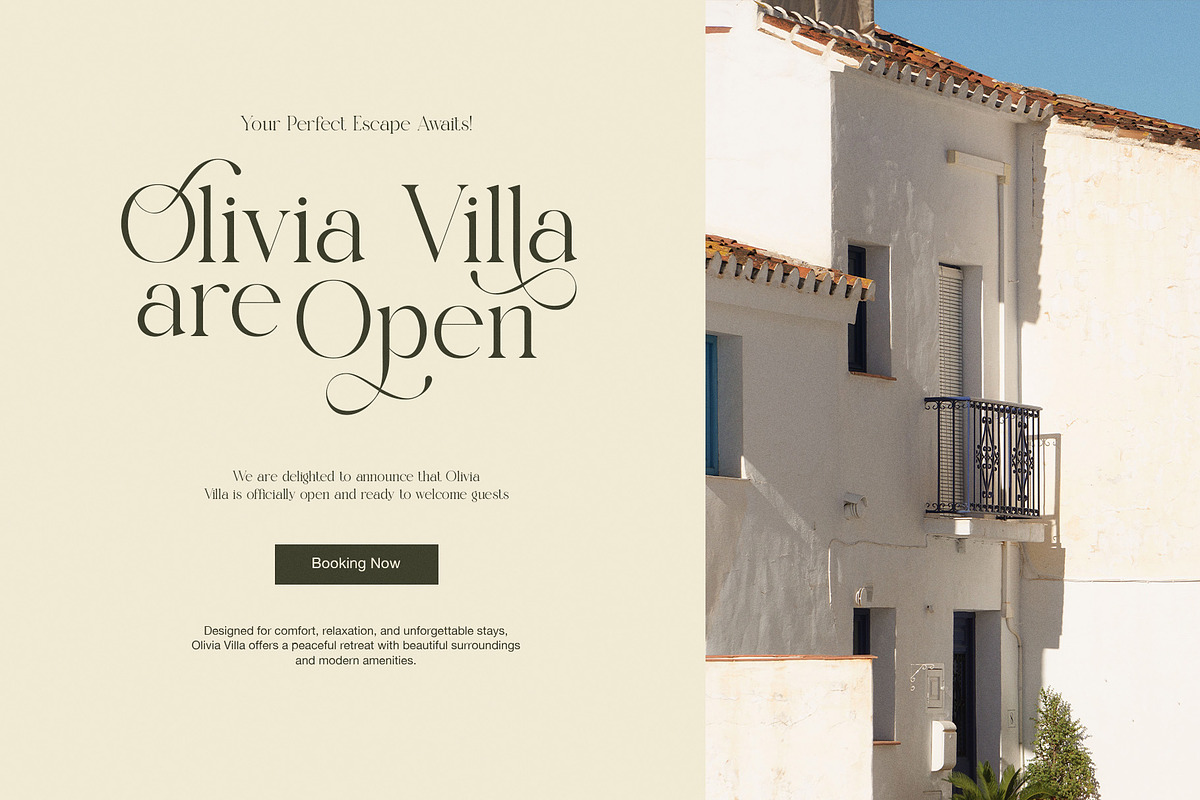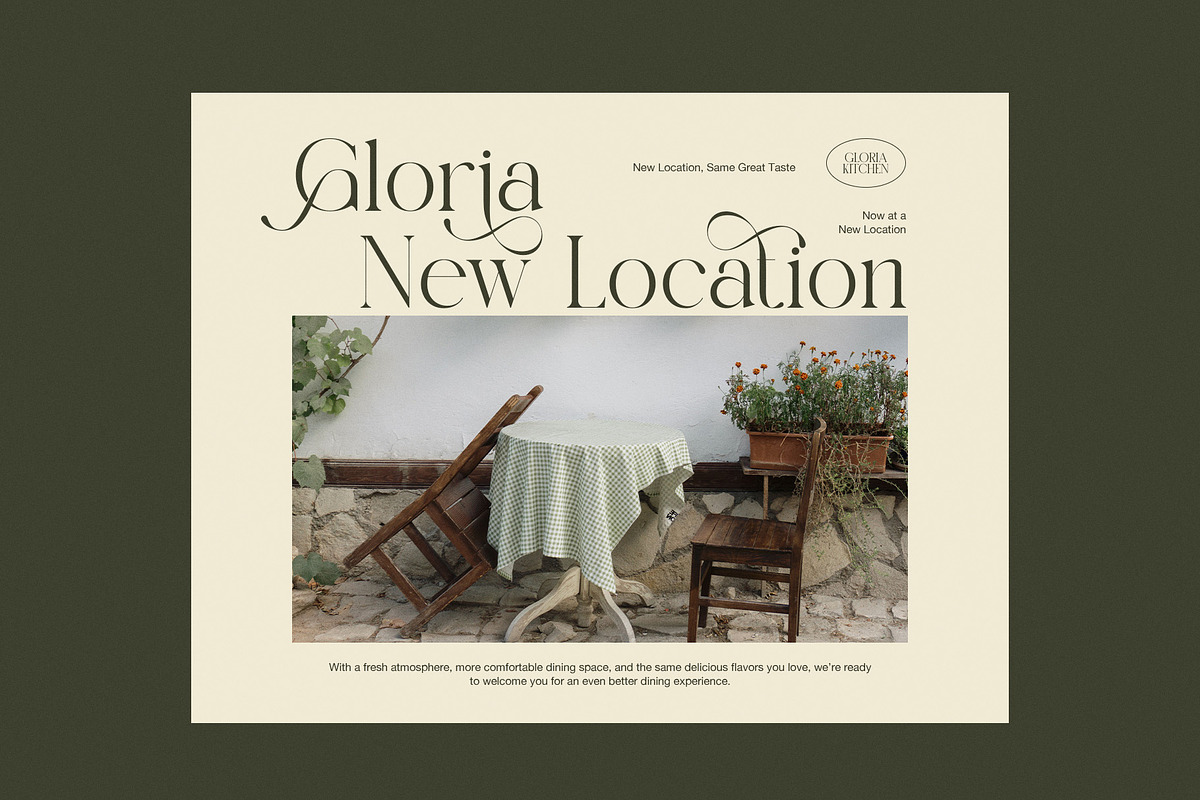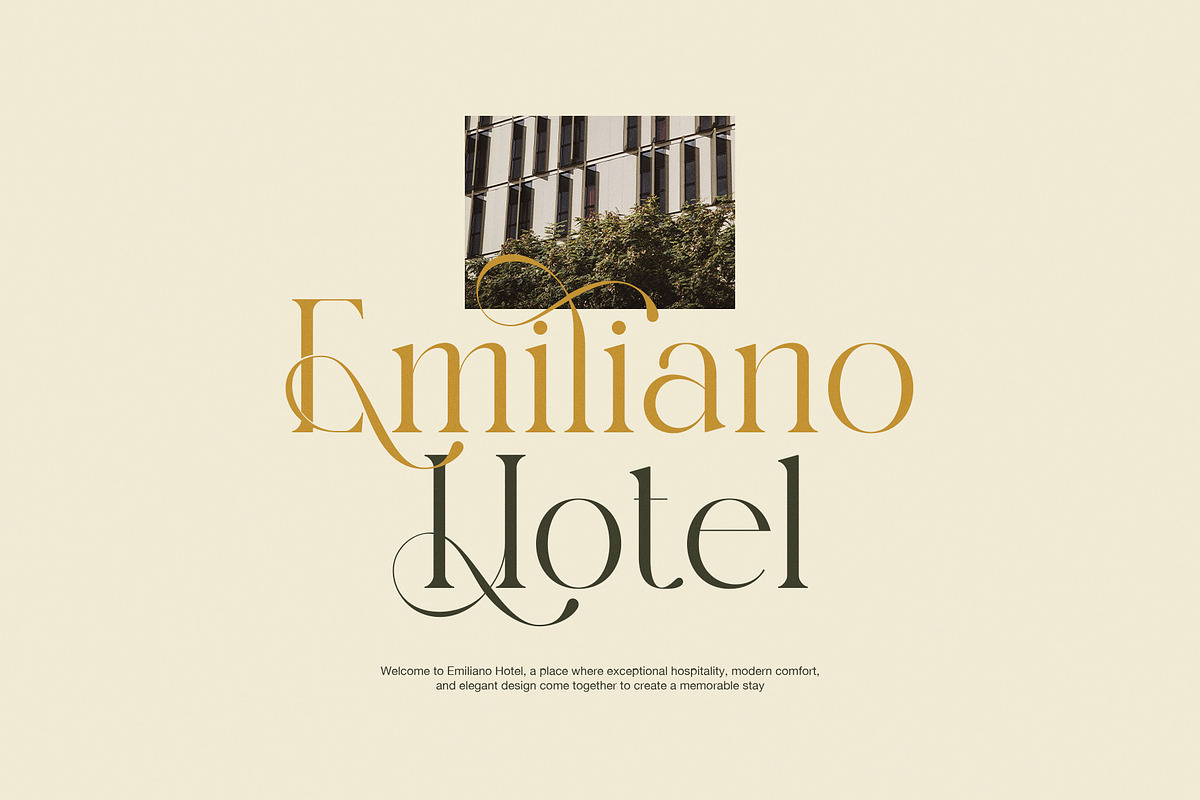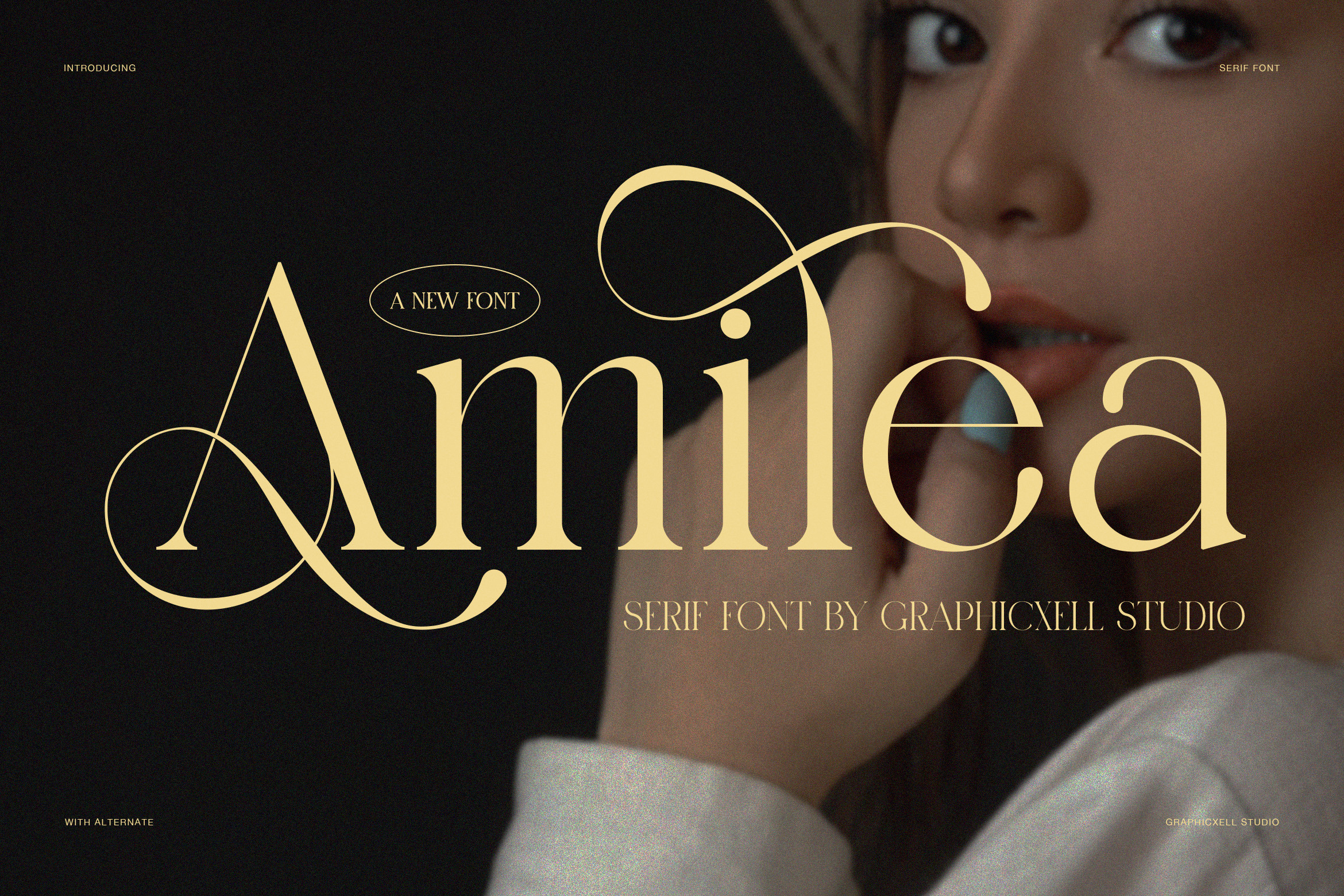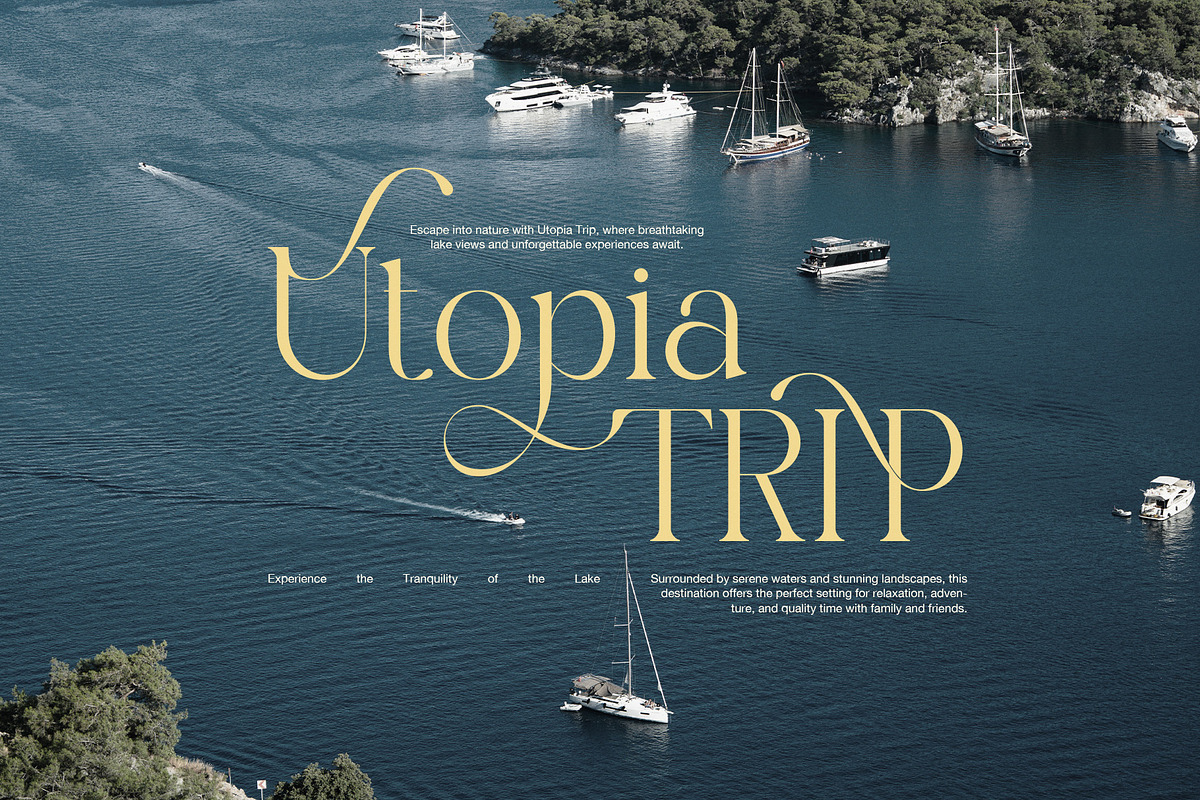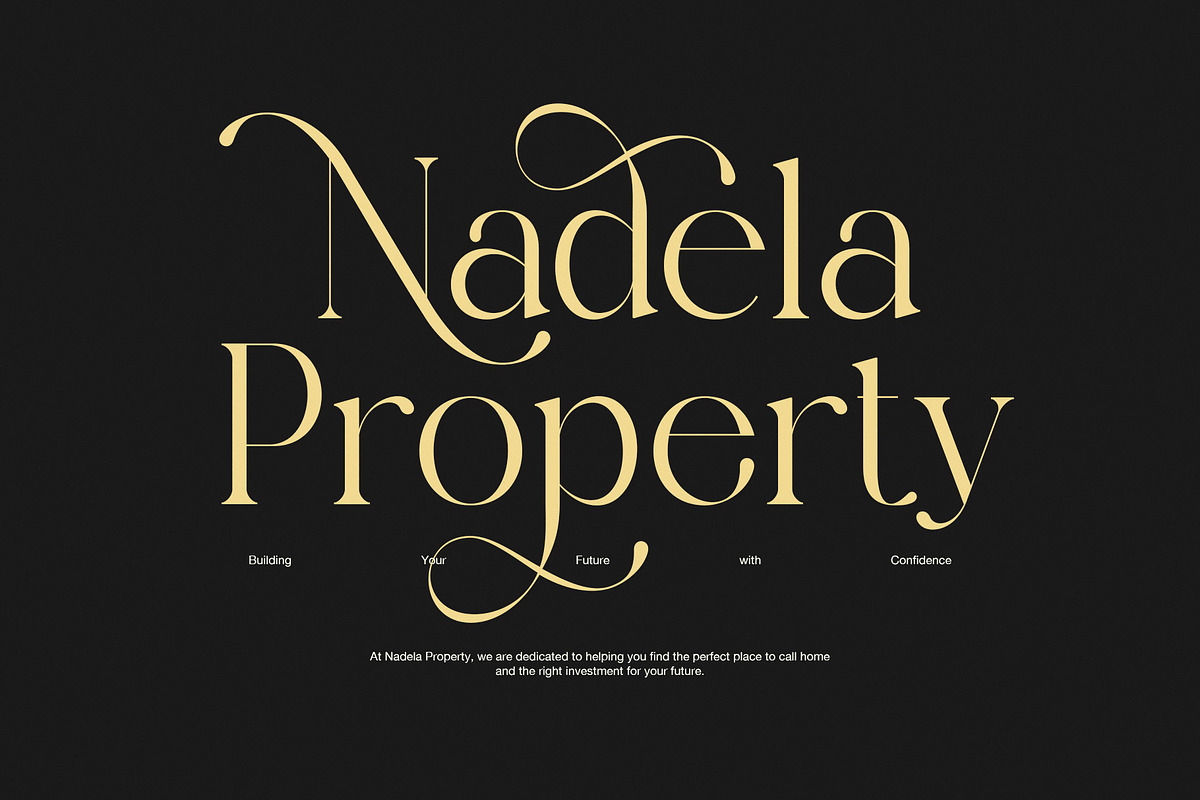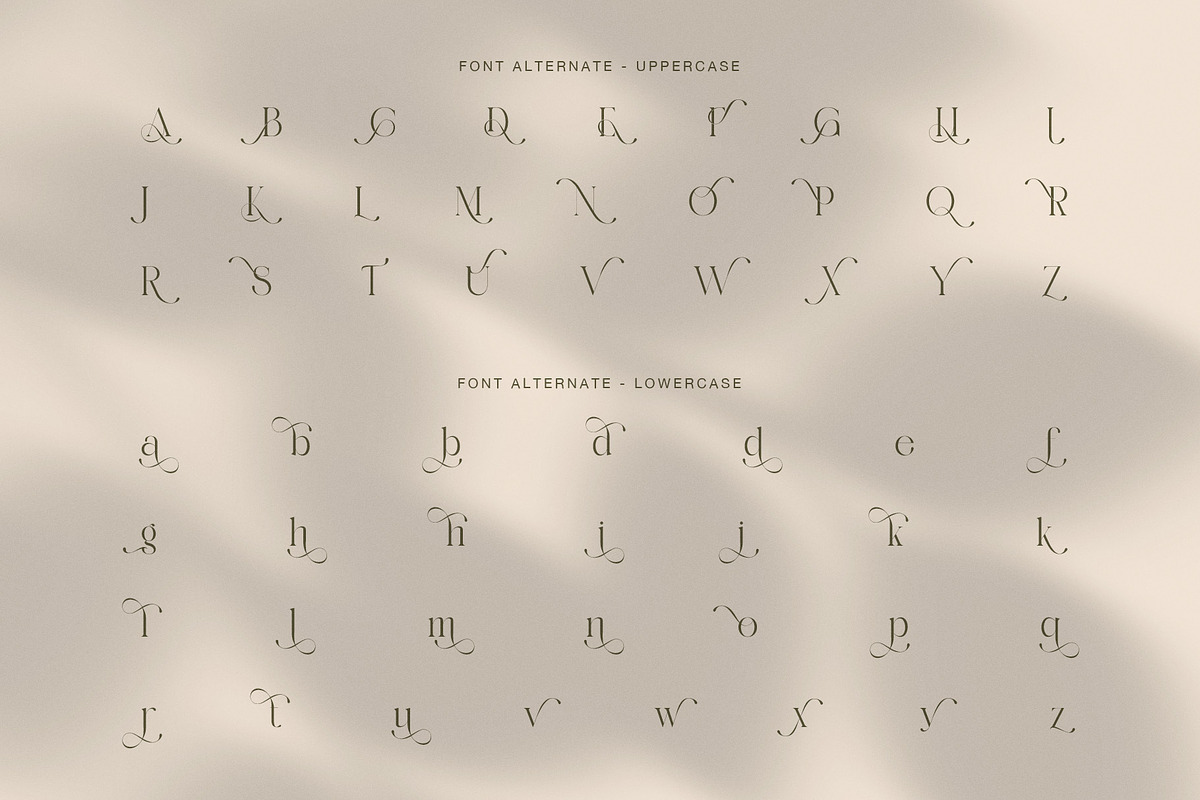
Amilea Elegant Serif Font
Amilea is an elegant serif font that blends luxury style with soft modern beauty. Moreover, it is designed with graceful curves, refined strokes, and artistic swashes that give each letter a unique personality. As a result, it creates a strong visual presence in both print and digital design.
Furthermore, Amilea combines classic serif structure with a fashionable script-like flow. Because of this, it feels both timeless and modern at the same time. In addition, the font includes stylish alternates and decorative ligatures, so designers can create expressive and high-end typography layouts with ease.
However, Amilea is not only about beauty. It also focuses on balance and readability. Therefore, it works well for both large headlines and elegant branding compositions. Meanwhile, its smooth contrast between thick and thin strokes adds depth and sophistication to every word.
For example, Amilea is perfect for many creative uses such as:
Luxury branding and logo design
Fashion magazine headlines
Wedding invitations and event cards
Beauty and cosmetic packaging
Boutique identity systems
Editorial layouts
Social media quotes and branding
Modern poster typography
In addition, Amilea gives designers more creative flexibility. Furthermore, its elegant swashes and alternates help create a custom and signature look for each project. Therefore, it is ideal for brands that want to stand out with a refined and artistic identity.
Moreover, Amilea works beautifully across different media. As a result, it performs well in websites, Instagram branding, printed materials, and advertising visuals. Also, its stylish rhythm brings emotional warmth and visual harmony to any design.
Overall, Amilea is a luxury serif font that merges elegance, fashion, and modern design taste. In conclusion, it is a perfect choice for designers who want to create premium visuals with a soft yet powerful identity. Consequently, every project using Amilea will feel more expressive, stylish, and unforgettable.